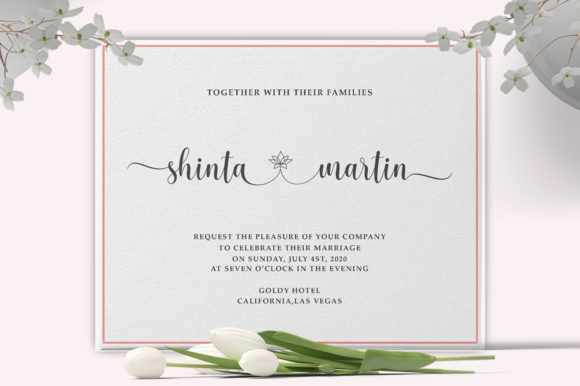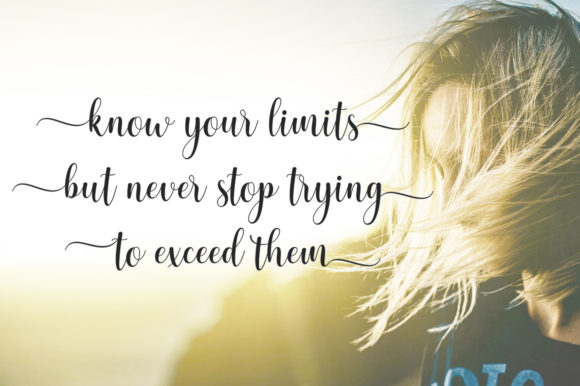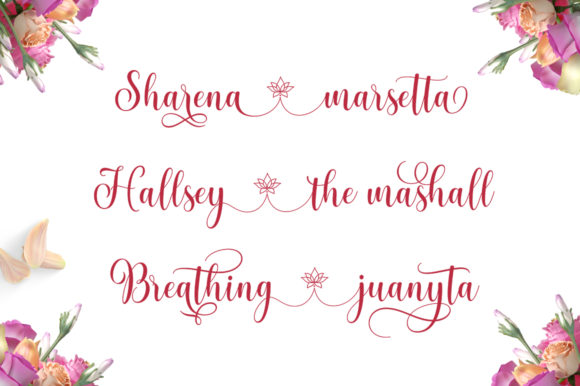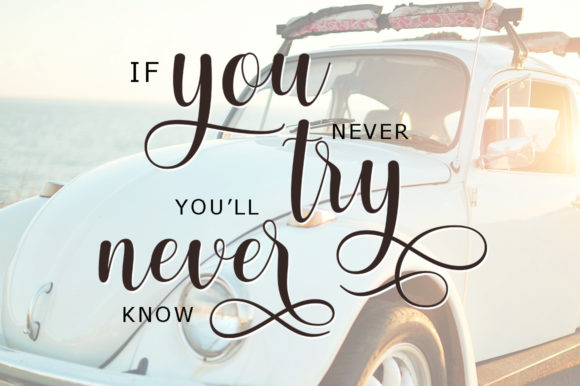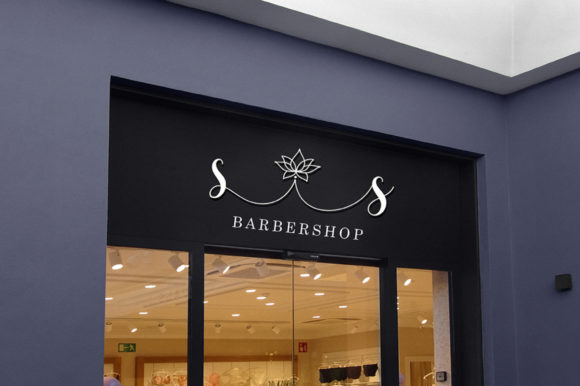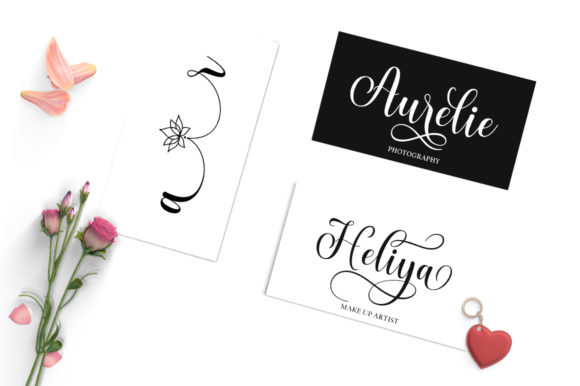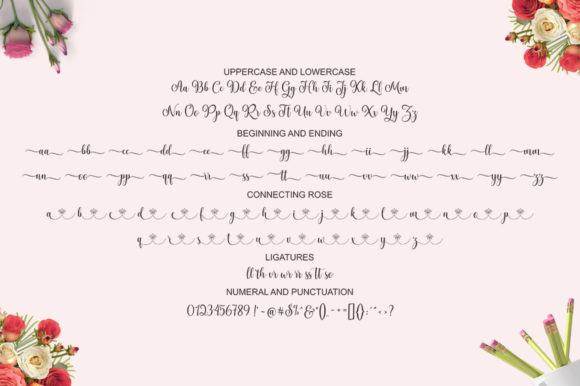
Pretty Heart Font
About Pretty Heart Font
Pretty Heart is a modern script font with an irregular baseline. Trendy and flowing, this font is the perfect match for your upcoming projects! It will look great on wedding invitations, thank you cards, quotes, branding, stationery and more!